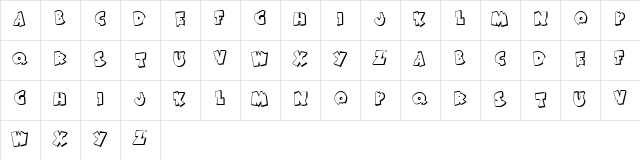
KR Bite Me Regular
Design Context for KR Bite Me Typeface
KR Bite Me is a composed and adaptable typeface that performs quietly and consistently across a wide range of design contexts.